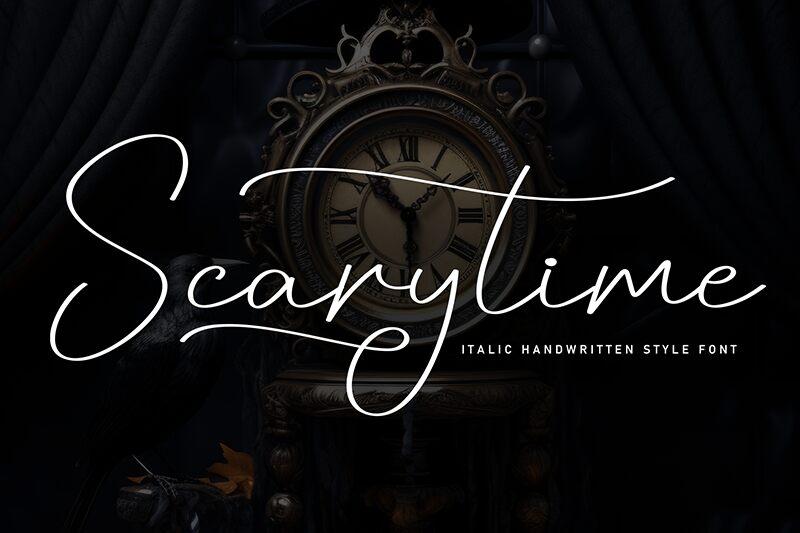
Scarytime font by Scratchones is a free handwritten font with a finely flowing style. The letters tilt slightly as in an italic script, and the presence of the handwritten style adds a casual and personal touch. The attitude is overall elegant and sophisticated, and the cursive design is a perfect fit for contemporary applications that require both modern and classic aspects.
Use this font for invitations such as wedding invitations to include the names as well as the main text. Branding is also an excellent field for Scarytime, such as designing a logo or developing a comprehensive brand identity. Any other graphic-centric project is suitable, like posters, social media, and packaging.